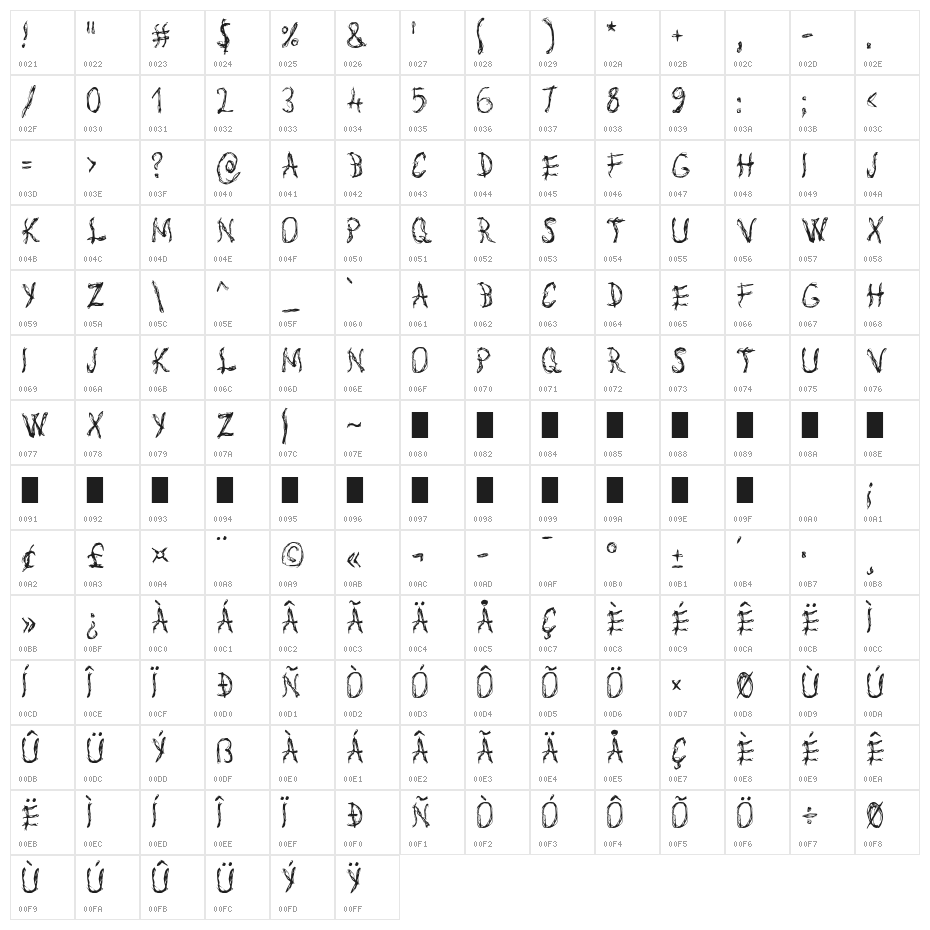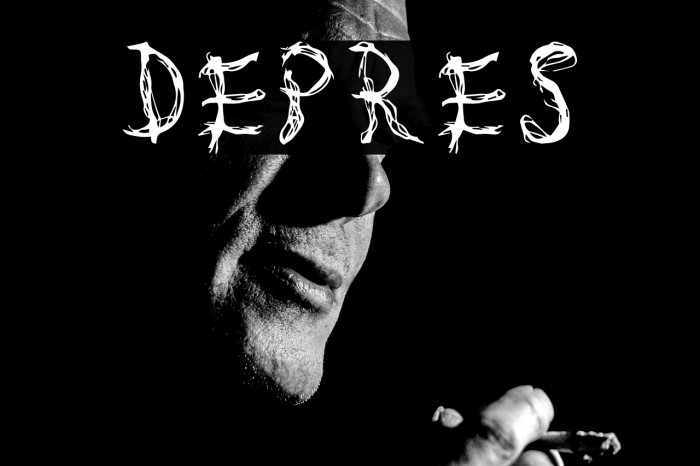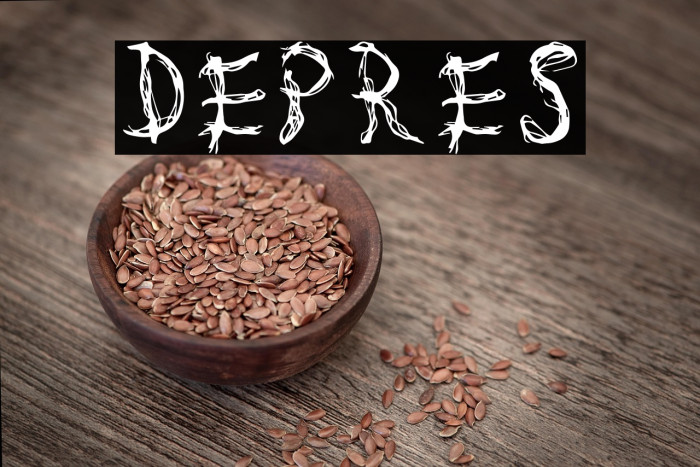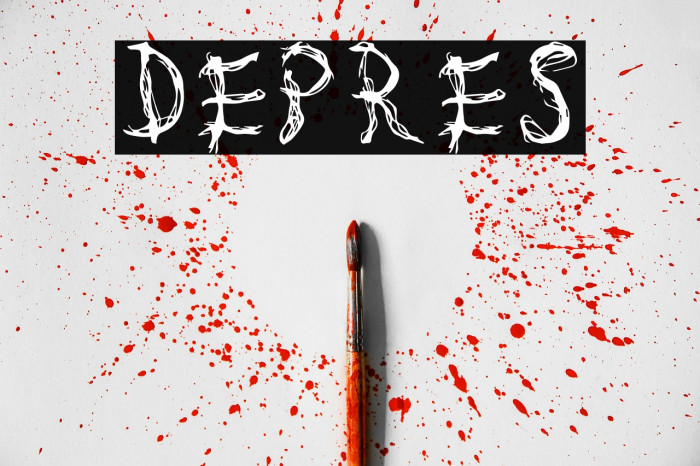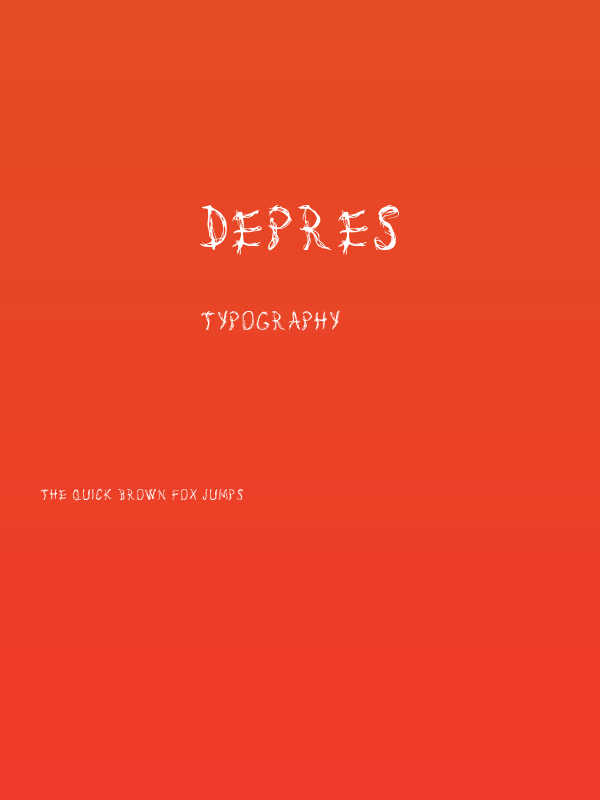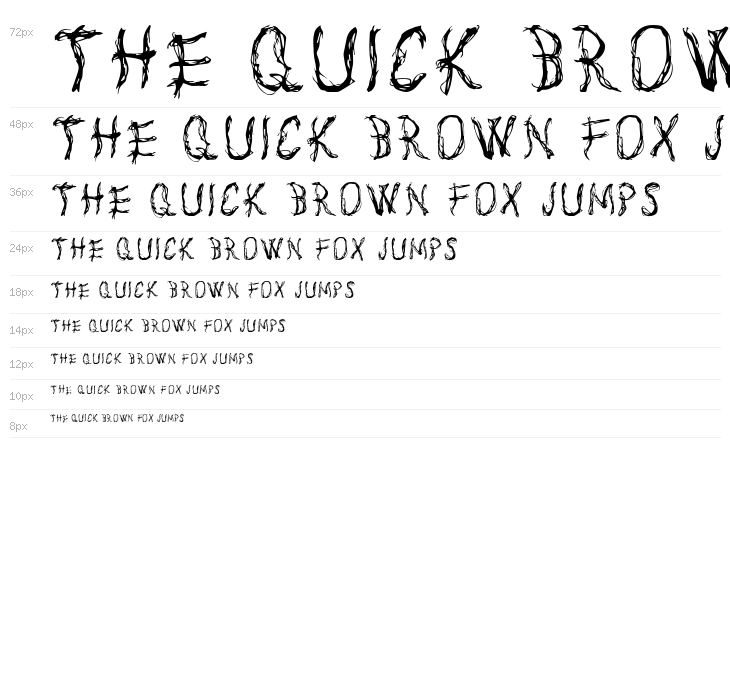
Depres Font
Depres Description
This font features a highly decorative and chaotic style, with each character appearing as if it is composed of tangled, thorny vines. The strokes are irregular and jagged, giving the font a wild and untamed appearance. The uppercase and lowercase letters maintain a consistent theme, with sharp edges and a sense of movement. Numbers and special characters follow the same intricate design, making the font suitable for projects that require a dramatic and eye-catching look. The overall impression is one of intensity and artistic flair, perfect for creative and unconventional applications.
| Use Case | Logos, Posters, Artistic Designs |
| Proposed Projects | Ideal for horror-themed designs, album covers, posters, and artistic projects requiring a dramatic flair. |